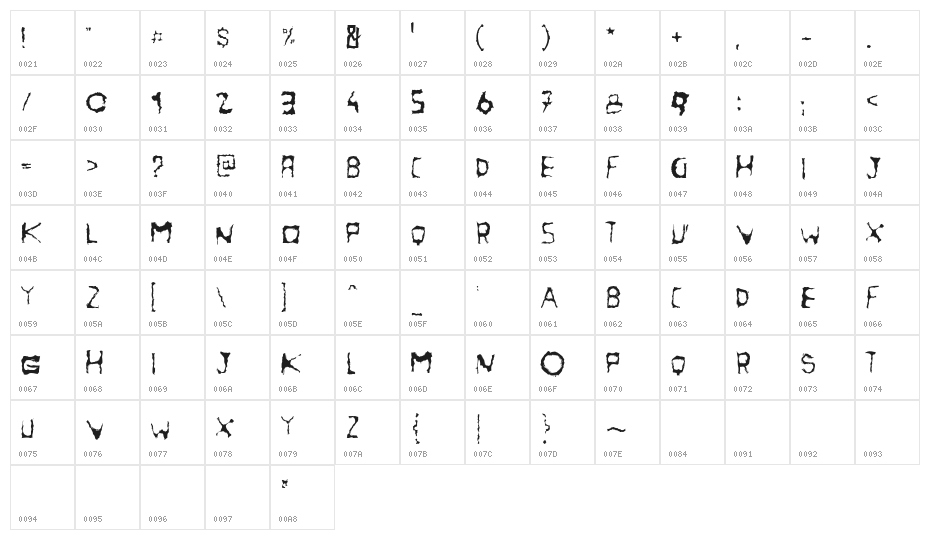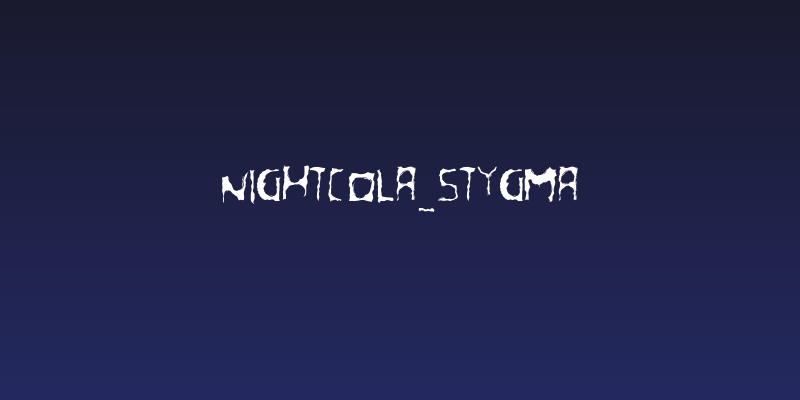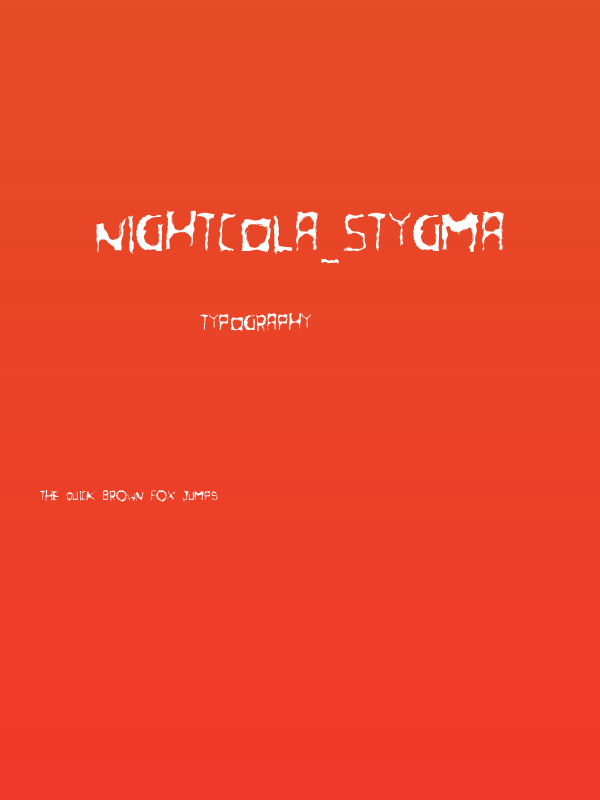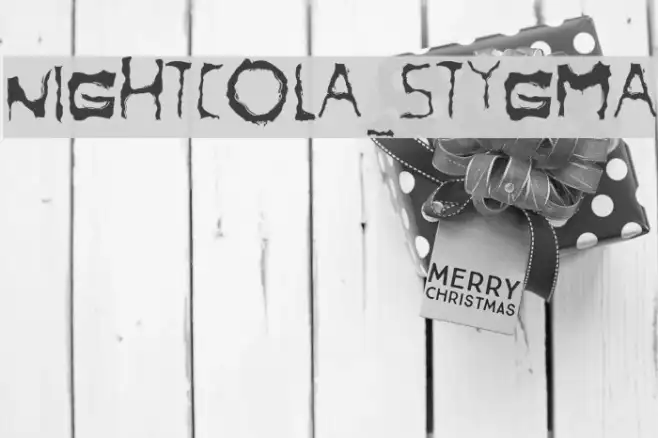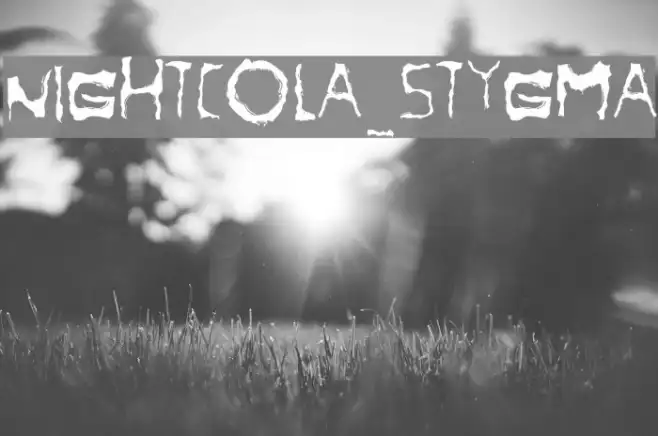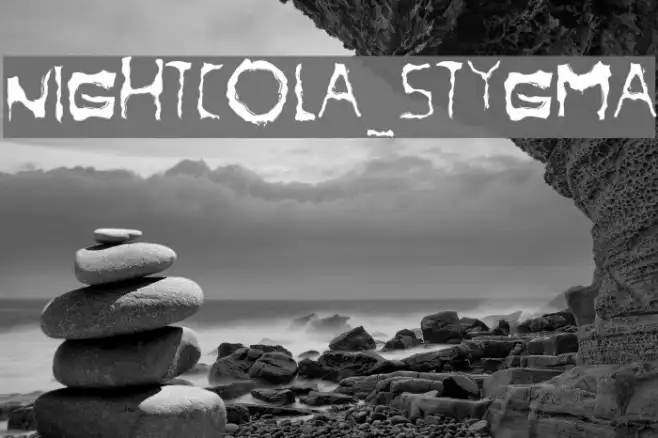
NightCola_Stygma Font
NightCola_Stygma Description
This font features a highly distressed and eroded style, with characters appearing as if they are decaying or melting. The edges are jagged and irregular, giving it a chaotic and unsettling appearance. The uppercase and lowercase letters maintain a consistent level of distortion, creating a cohesive yet unpredictable look. Numbers and special characters follow the same design principles, ensuring uniformity across all glyphs. This font is ideal for projects that require a dramatic and eerie aesthetic, such as horror-themed designs or edgy branding.
| Proposed Projects | Ideal for horror movie posters, Halloween event flyers, edgy album covers, or any project needing a dramatic and unsettling aesthetic. |